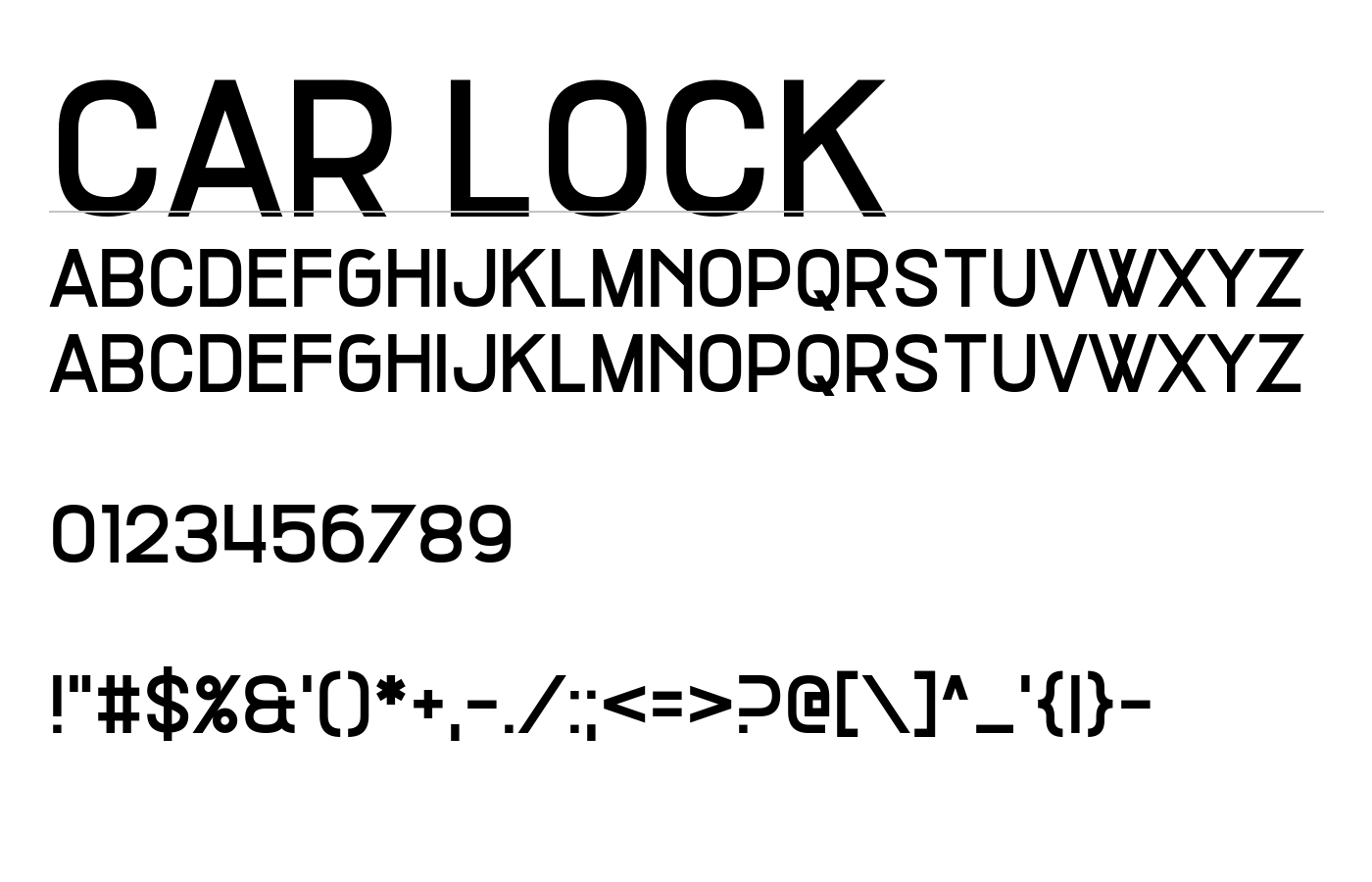
Car Lock is a clean, modern sans serif font featuring a tall, narrow structure with a medium weight and low contrast between strokes. Its geometric shapes and slightly squared edges give it a technical, precise feel, making it ideal for use in branding, signage, and editorial design where clarity and a contemporary aesthetic are key. This font works well for headlines and logos that require a strong, confident presence with a touch of industrial sophistication.